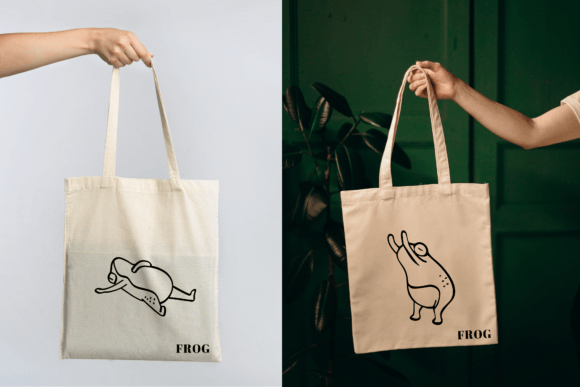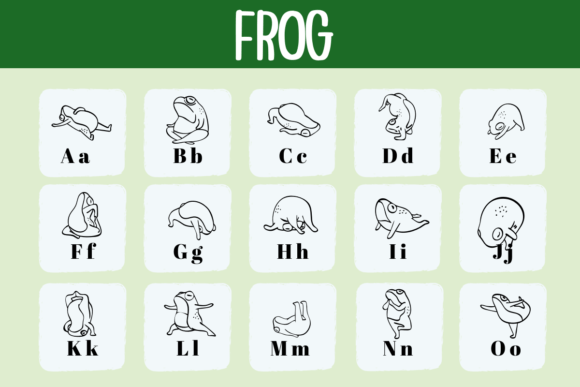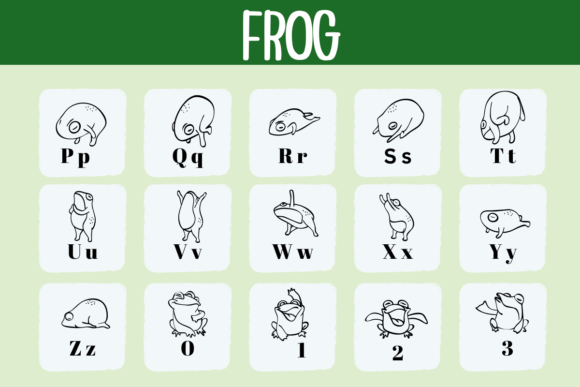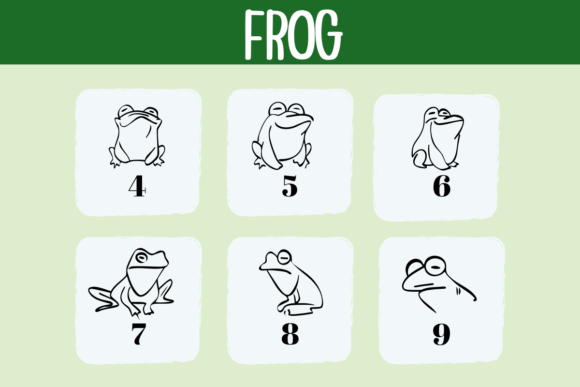
Frog Font: A Cute Dingbat Font to Elevate Your Creative Projects
Are you a designer, crafter, or DIY enthusiast looking for a fun and quirky font to add some personality to your projects? Look no further than the Frog Font! This adorable dingbat font is sure to bring a smile to your face and take your creative endeavors to the next level.
What is Frog Font?
Frog Font is a unique and charming dingbat font that features illustrations of frogs in various poses and expressions. This font is perfect for adding a touch of whimsy and playfulness to your designs, whether you’re working on a children’s book, a craft project, or a marketing campaign.
Why Use Frog Font?
There are many reasons why Frog Font is a great addition to your font collection. Here are just a few:
- Add a touch of personality: Frog Font is a great way to add some personality and humor to your designs. The cute and quirky illustrations are sure to bring a smile to your audience’s faces.
- Perfect for kids’ projects: The Frog Font is ideal for children’s books, educational materials, and kids’ crafts. The illustrations are fun and engaging, making them perfect for young audiences.
- Versatile: Frog Font can be used for a wide range of projects, from digital designs to print materials. You can use it to create fun and eye-catching titles, headings, and even illustrations.
- Easy to use: Frog Font is a dingbat font, which means it’s easy to use and navigate. Simply type in the keyboard shortcuts to access the different frog illustrations.
Frog Font in Action
Here are some examples of how you can use Frog Font in your creative projects:
- Children’s book illustrations: Use Frog Font to create fun and engaging illustrations for children’s books. You can use the frog illustrations to bring characters to life.
- Craft projects: Add a touch of whimsy to your craft projects, such as handmade cards, gift tags, and scrapbook pages.
- Marketing campaigns: Use Frog Font to add some personality to your marketing campaigns. You can use the frog illustrations to create fun and eye-catching ads and social media graphics.
Here are some tips and tricks to help you get the most out of Frog Font:
- Experiment with colors: Try out different colors and color combinations to make the Frog Font pop.
- Mix and match: Combine Frog Font with other fonts and illustrations to create unique and interesting designs.
- Use it sparingly: Use Frog Font sparingly to add emphasis and create visual interest.